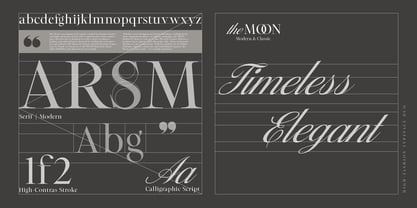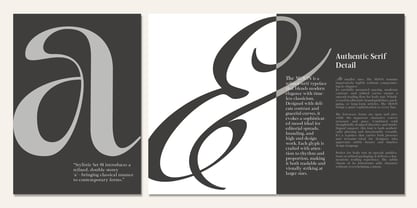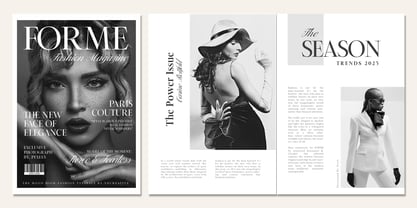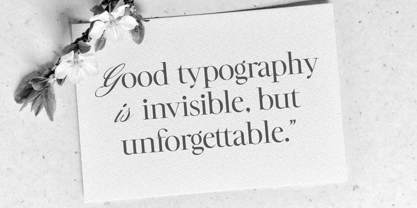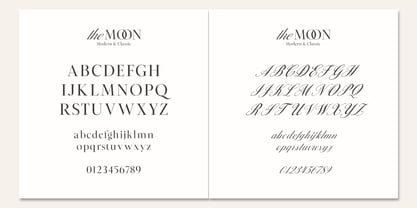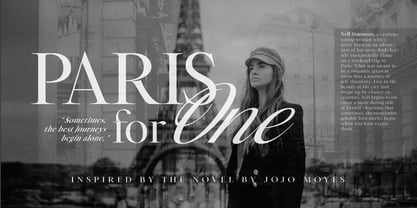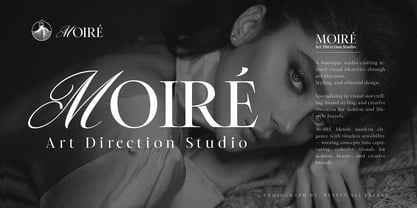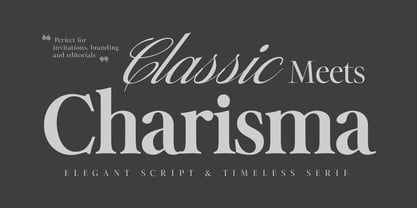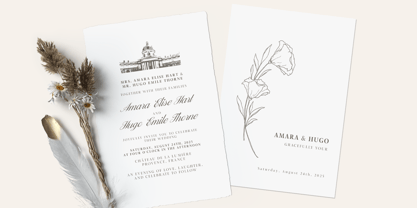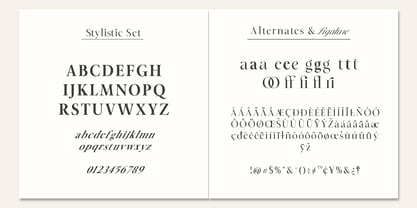
The Moon Duo
by XdCreative
The The Moon Duo Font Family was designed by Faldy Kudo and published by XdCreative. The Moon Duo contains 2 styles and family package options. More about this family
✦ The MOON High-Fashion Duo Typeface
The MOON is an elegant serif typeface crafted for timeless beauty and high-end design.
Paired with a sophisticated script counterpart, this font duo is designed to evoke a sense of romance, fashion, and editorial grace.
Inspired by traditional serif anatomy and refined with balanced contrast and full alternates
Uppercase (A–Z) an Lowercase (a–z), the MOON Modern & Classic offers flexibility and character in every glyph.
Whether you're designing for luxury branding, wedding invitations, magazine headlines, or fashion campaigns,
the MOON Modern & Classic is your go-to duo. The serif typeface delivers a modern classic appeal, while the script adds softness and poetic rhythm to your compositions.
With its complete set of stylistic alternates, ligatures, numerals, and multilingual support, the Moon is not just a font — it’s a design experience.
• The Moon Serif
• The Moon Script
• Uppercase & Lowercase
• Full alternates A–Z and a–z
• Ligatures
• Numbers & Punctuation
• Multilingual Support
✦ Perfect For:
• Editorial layouts
• Fashion branding
• Luxury packaging
• Wedding stationery
• Logo & visual identity
• Social media templates
• Elegant website headers